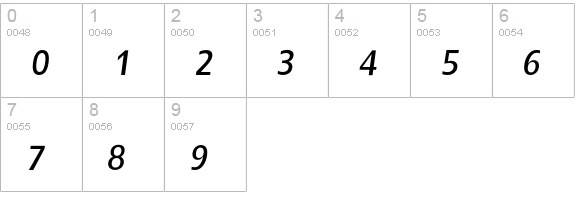
Slippy-Italic is a distinctive, italic variant in the Slippy typeface family \xE2\x80\x94 well suited to design and typography projects.
Slippy-Italic font is a captivating and unique typeface that adds a touch of elegance to any design project. Its sleek and slanted letterforms create a sense of movement and sophistication, making it perfect for titles, headings, and branding materials. This font exudes a modern and dynamic vibe, making it ideal for a wide range of applications such as websites, posters, advertisements, and social media graphics. Its italicized appearance adds a stylish twist, giving your designs a distinct and contemporary look. One of the best things about Slippy-Italic font is that it is completely free to use. You can freely download it from FontsMarket.com, a reputable website that offers a vast collection of high-quality fonts. This means that you can elevate your designs without having to worry about any licensing restrictions or additional costs. With Slippy-Italic font, you have the freedom to unleash your creativity and bring your ideas to life. Its sleek and stylish letterforms will captivate your audience and leave a lasting impression. So why wait? Download Slippy-Italic font today and take your designs to the next level.